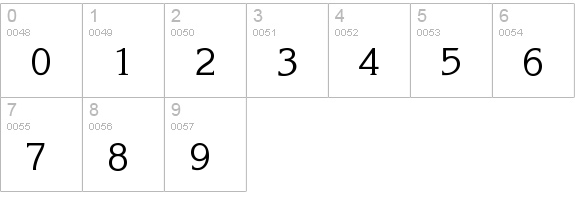
KorinnaEF-Regular is the standard, neutral variant in the KorinnaEF typeface family \xE2\x80\x94 well suited to general body text, paragraphs, and standard typographic work.
KorinnaEF-Regular is a timeless and elegant font that combines classic style with a modern touch. With its graceful curves and balanced letterforms, this typeface exudes sophistication and charm. Perfect for a wide range of design projects, from invitations to branding and beyond, KorinnaEF-Regular adds a touch of refinement to any text. Best of all, KorinnaEF-Regular is free to use and download at FontsMarket.com. This means you can access this beautiful font without any cost and elevate your creations with its unique aesthetic. Don't miss out on this opportunity to enhance your designs with the beauty of KorinnaEF-Regular. Download it now and let your creativity shine!